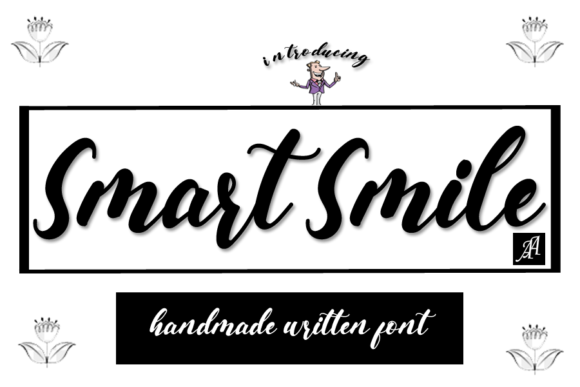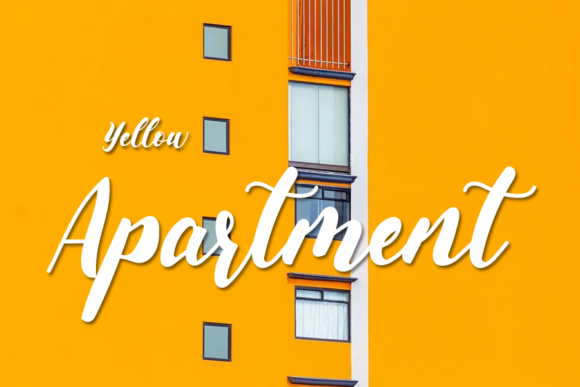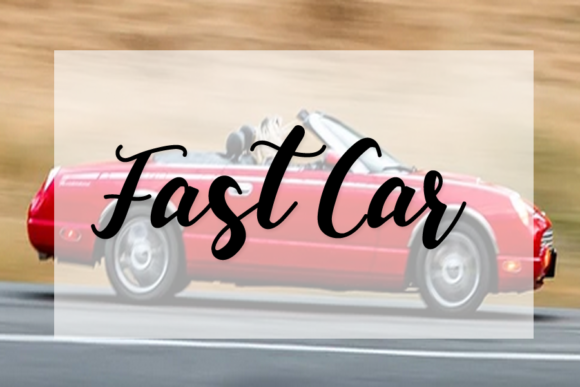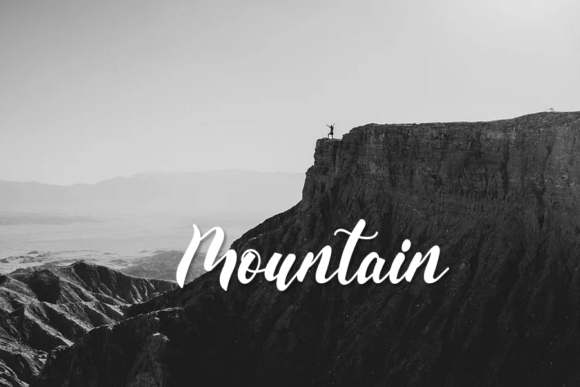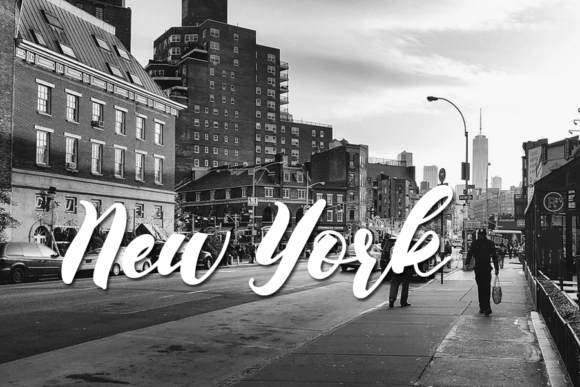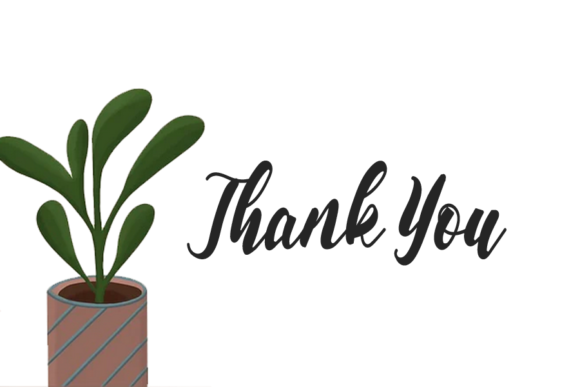
Smart Smile Font
About Smart Smile Font
Smart Smile is a whimsical script font with a relaxed theme, featuring a lovely style. No matter the topic, this font will be an incredible asset to your fonts’ library, as it has the potential to elevate any creation.